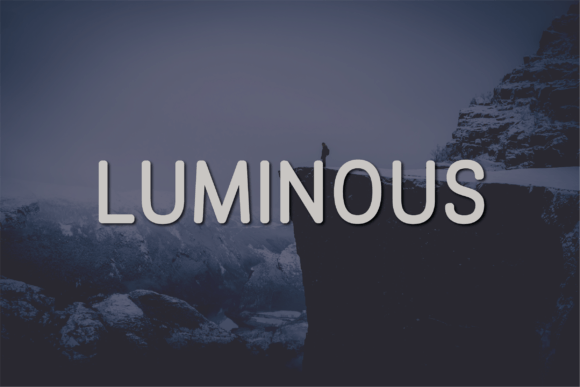
Behold Luminous Font, a beacon of digital elegance that will illuminate your creative projects with unparalleled charm and sophistication. Its modern and classy sans serif design is a masterpiece of minimalist beauty, exuding an air of understated confidence that will captivate your audience.
Step into a world of visual enchantment where your words dance with grace upon the digital canvas. Luminous Font's carefully crafted letterforms possess an inherent magnetism, drawing the eyes of readers and holding them spellbound. Whether you're crafting logos that shine, invitations that sparkle, or advertisements that sizzle with energy, Luminous Font is your secret weapon for creating designs that leave a lasting impression.
Experience the thrill of effortless versatility as you witness Luminous Font's seamless adaptability across a vast spectrum of creative endeavors. From the delicate strokes of wedding invitations to the bold statements of magazine headlines, Luminous Font transforms your ideas into visual masterpieces. Its inherent charm effortlessly elevates any project, adding a touch of refinement and sophistication that sets your work apart.
Immerse yourself in the creative possibilities that unfold when you unleash the power of Luminous Font. Bask in the admiration of your clients as they marvel at the sheer brilliance of your designs. Witness the surge of engagement as your social media posts ignite a frenzy of likes and shares. Luminous Font is not just a font; it's an investment in your creative future, a gateway to design excellence that will redefine your brand's visual identity.
Join the ranks of discerning designers who have discovered the magic of Luminous Font. Let your imagination soar as you explore the boundless possibilities that await you. Embrace the transformative power of this modern marvel and unlock a new realm of creative brilliance. Luminous Font is more than just a font; it's an experience that will redefine your design journey.